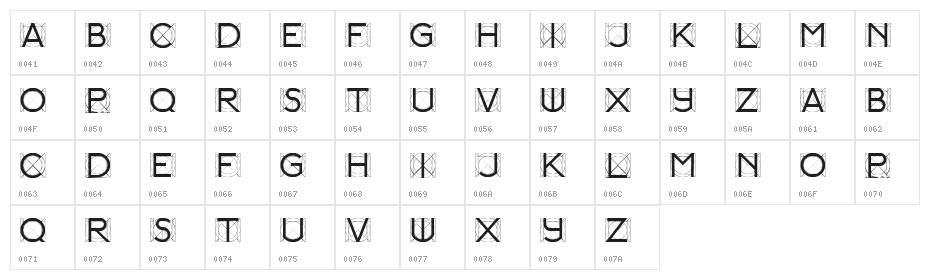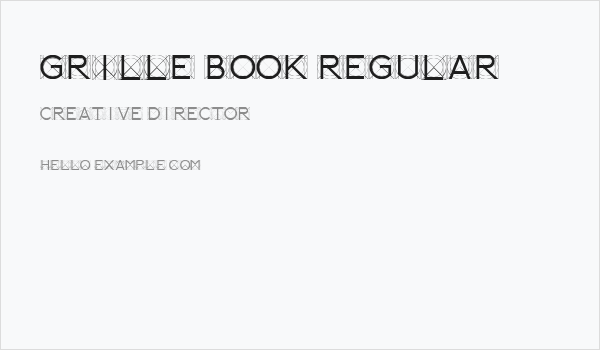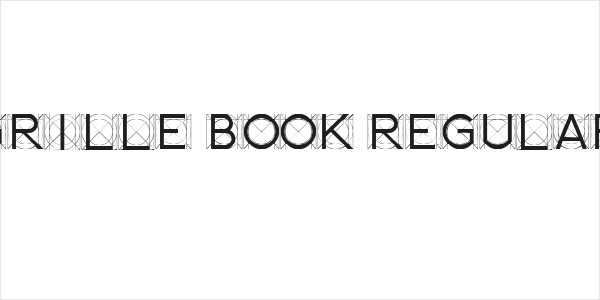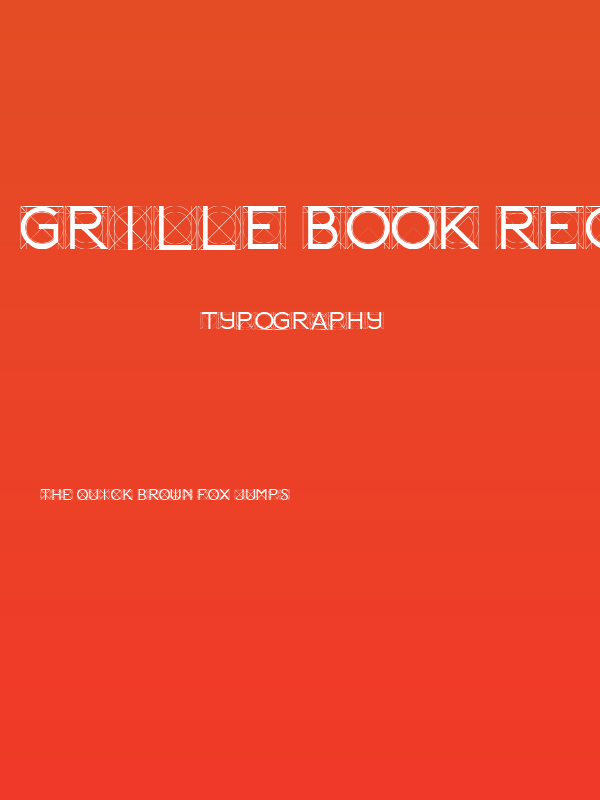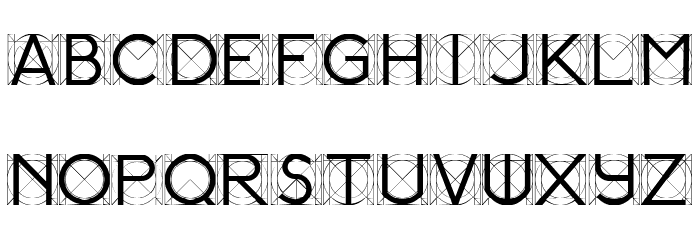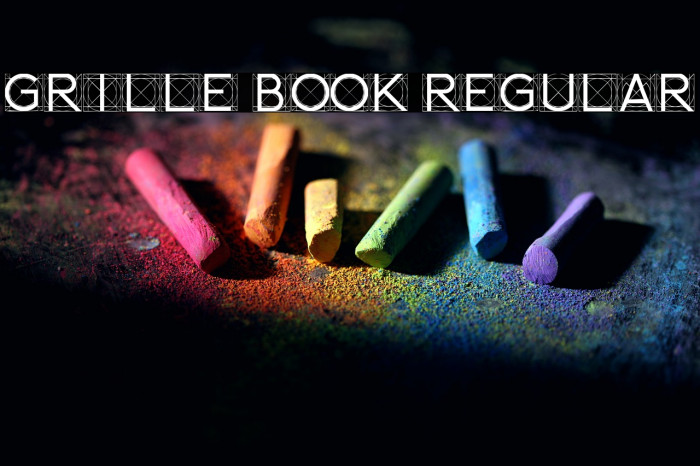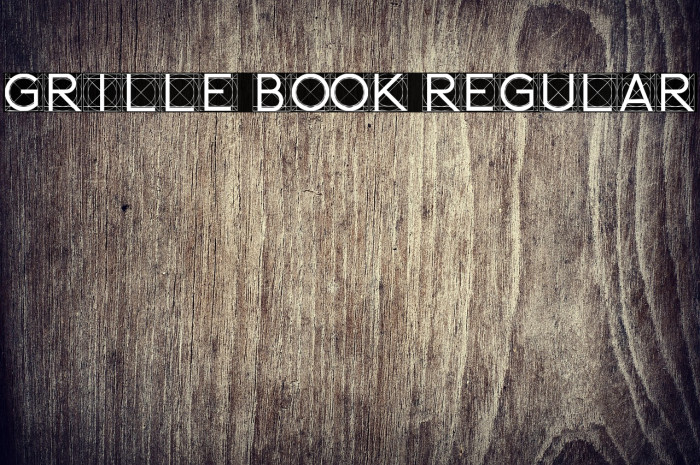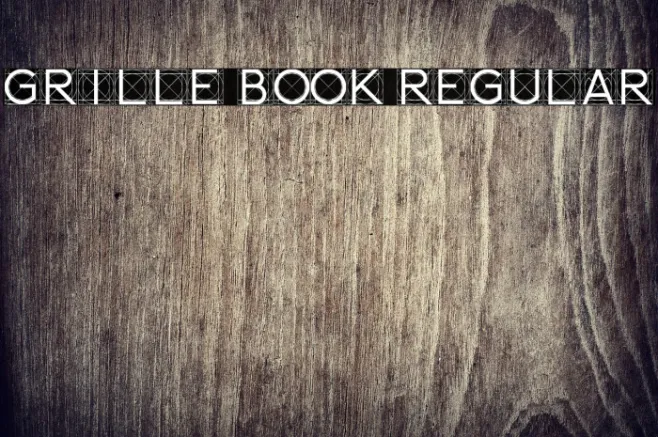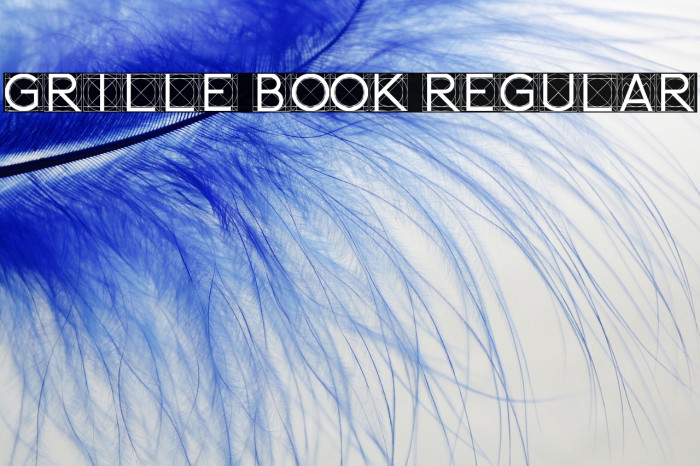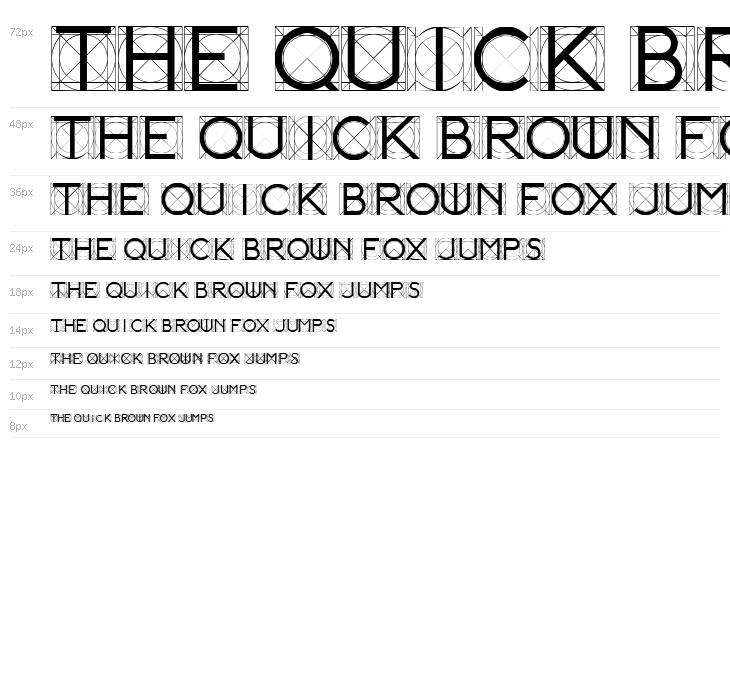
Grille Book Regular Font
Grille Book Regular Description
This font features a geometric and structured design, characterized by its grid-like pattern overlaying each letter. The characters are bold and uniform, with a modern and technical appearance. The use of intersecting lines and circles within each letterform creates a sense of precision and order. The uppercase letters are consistent in height and width, contributing to a cohesive and balanced look. This font's unique style makes it stand out, offering a blend of artistic flair and mathematical precision.
| Proposed Projects | Ideal for architectural designs, technical documents, modern branding, and digital interfaces. |